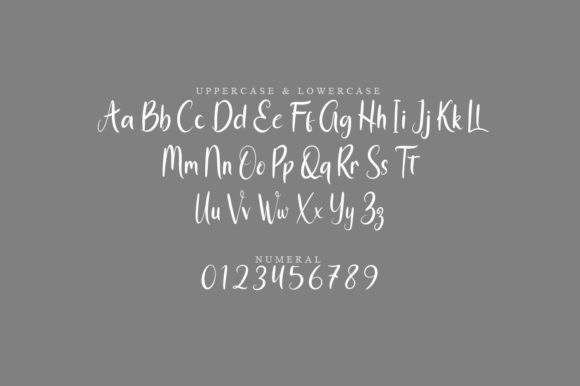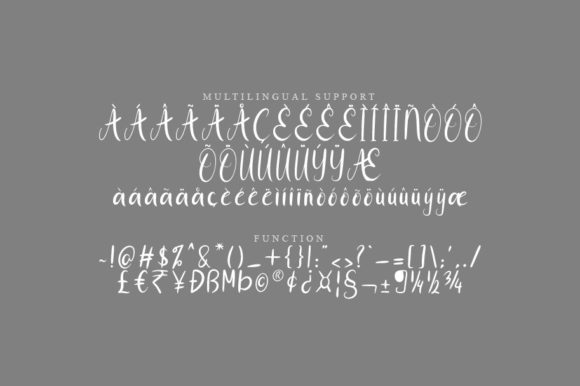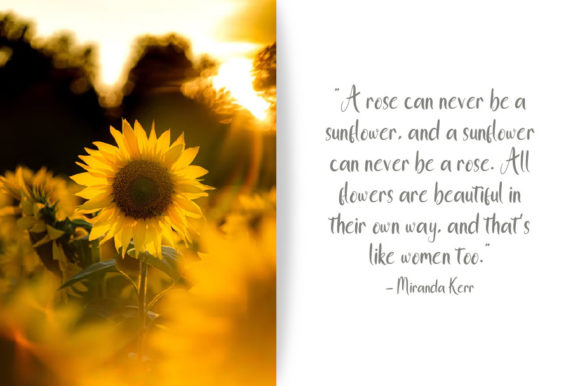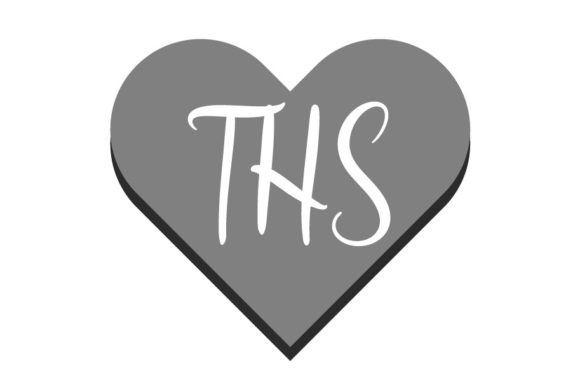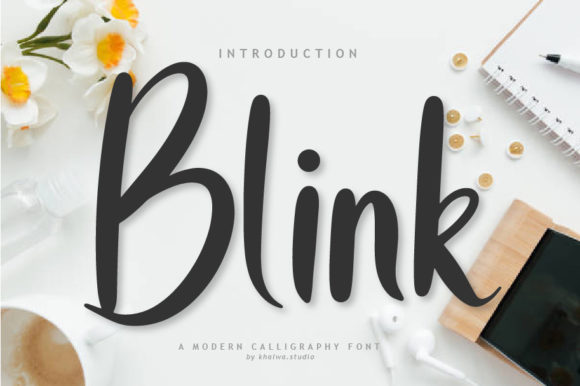
Introducing Blink Script Font: The Perfect Choice for Creative Designers
Are you a designer or crafter looking for a unique and timeless font to elevate your creative projects? Look no further than Blink Script Font! This lovely handwritten font is perfect for creating eye-catching logos, branding, and quotes that will leave a lasting impression.
The Beauty of Blink Script Font
Blink Script Font boasts a distinctive and beautiful touch, with every letter carefully crafted to bring your design to life. Its unique characteristics make it an excellent choice for designers who want to add a personal touch to their work. Whether you’re creating a logo, branding materials, or social media graphics, Blink Script Font is sure to make your design stand out.
Key Features of Blink Script Font
- Handwritten style: Blink Script Font features a lovely handwritten style that adds a touch of elegance and sophistication to your design.
- Unique letterforms: Every letter in Blink Script Font has a unique and beautiful touch, making it perfect for creating eye-catching logos and branding materials.
- Timeless design: Unlike trendy fonts that quickly go out of style, Blink Script Font has a timeless design that will remain relevant for years to come.
- Versatile: Blink Script Font is versatile and can be used for a wide range of design projects, from logos and branding to quotes and social media graphics.
Why Choose Blink Script Font?
So, why should you choose Blink Script Font for your design projects? Here are just a few reasons:
- Easy to read: Despite its unique and handwritten style, Blink Script Font is easy to read, making it perfect for body text and quotes.
- Highly legible: The font’s high legibility ensures that your message gets across clearly, even at small font sizes.
- Customizable: Blink Script Font can be easily customized to fit your design needs, from adjusting the font size and color to adding effects and textures.
How to Use Blink Script Font in Your Design Projects
Using Blink Script Font in your design projects is easy! Here are a few tips to get you started:
- Pair it with other fonts: Blink Script Font pairs well with other fonts, including sans-serif and serif fonts. Experiment with different font combinations to find the perfect look for your design.
- Use it for headings and titles: Blink Script Font is perfect for headings and titles, where its unique and beautiful touch can really shine.
- Add texture and effects: Add texture and effects to Blink Script Font to give it an extra boost of personality and style.
In conclusion, Blink Script Font is a lovely and timeless handwritten font that’s perfect for creative designers and crafters. Its unique and beautiful touch, combined with its versatility and legibility, make it an excellent choice for a wide range of design projects. Whether you’re creating logos, branding materials, or social media graphics, Blink Script Font is sure to bring your design to life!